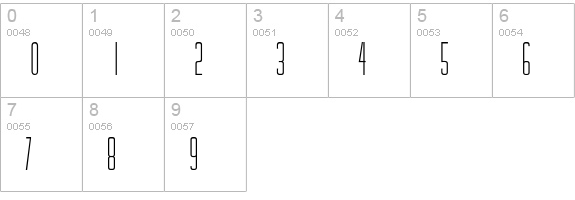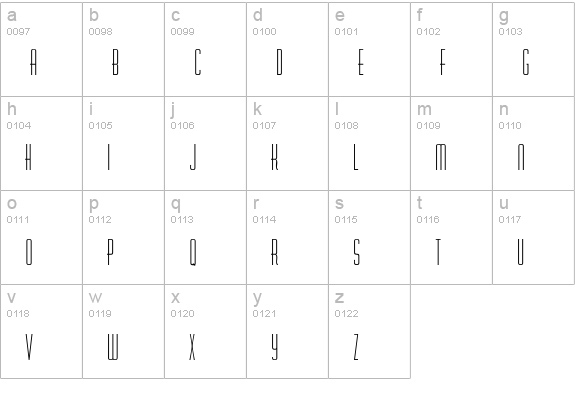
RobaloSCapsSSK Font Details
RobaloSCapsSSK is a stylish and modern font that exudes elegance and sophistication. Its sleek lines and sharp edges make it perfect for creating eye-catching designs and projects. This versatile font is ideal for various purposes, from branding and advertising to invitations and social media graphics. The best part? RobaloSCapsSSK is completely free to use and is available for download at FontsMarket.com. Whether you are a professional designer or a hobbyist looking to add a touch of flair to your work, this font is sure to elevate your creations to the next level. Take advantage of this amazing opportunity to enhance your projects with the beauty and uniqueness of RobaloSCapsSSK font.